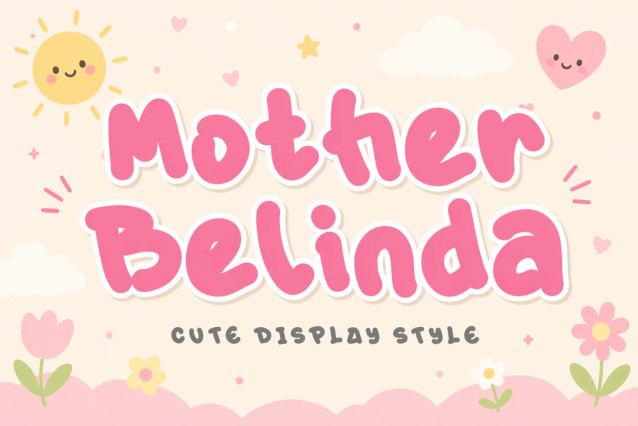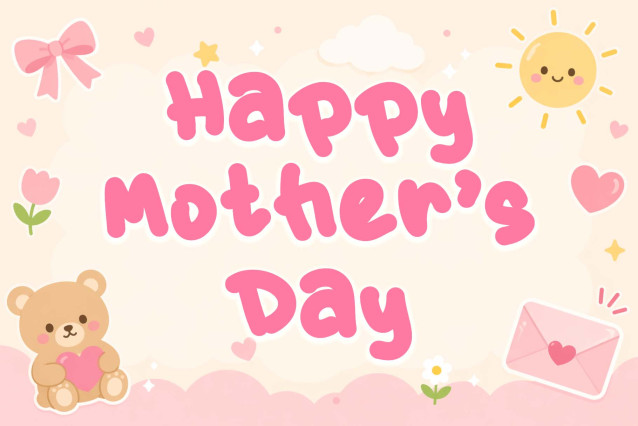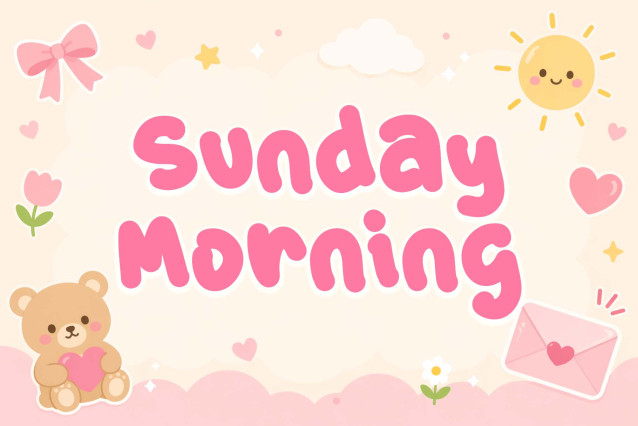
Mother Belinda Font
Embrace a world of warmth and wonder with Mother Belinda, a charming display typeface that captures a “sweet-and-sun-drenched” soul. This font features thick, ultra-rounded letterforms characterized by rhythmic, hand-drawn curves and a soft, bubbly structure that feels like a cozy embrace. With its heavy structural weight and joyful personality, Mother Belinda is the premier choice for independent baby boutique branding, children’s nursery decor, playful stationery design, and high-impact “cheerful-and-charming” social media headers.